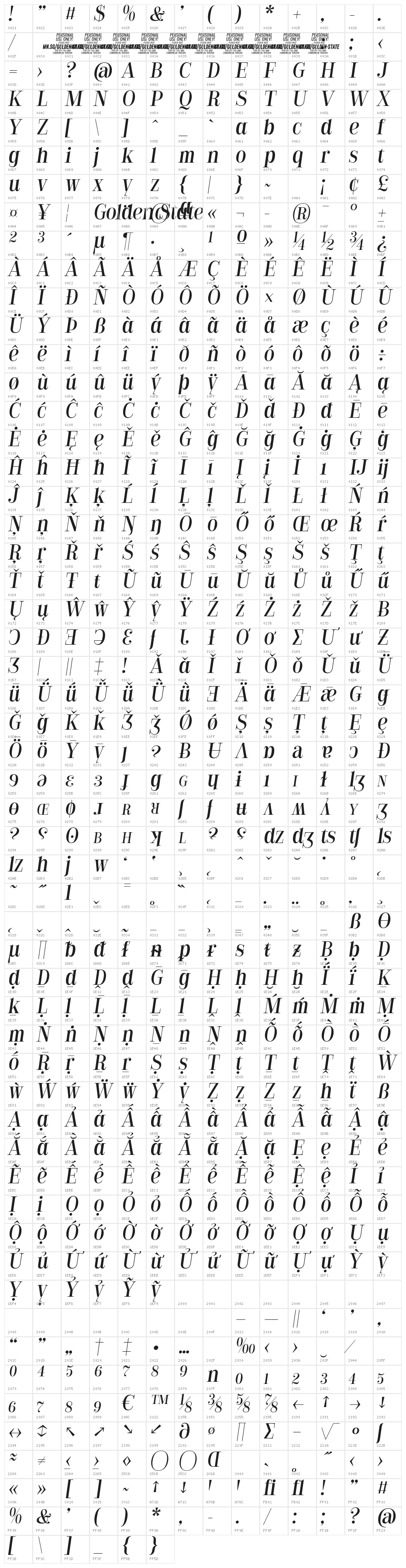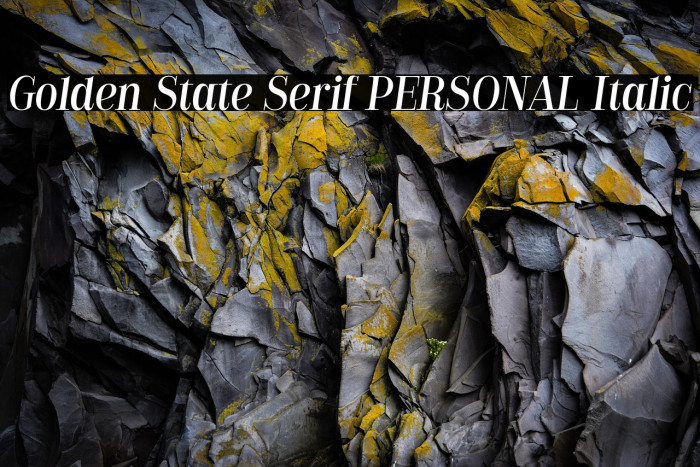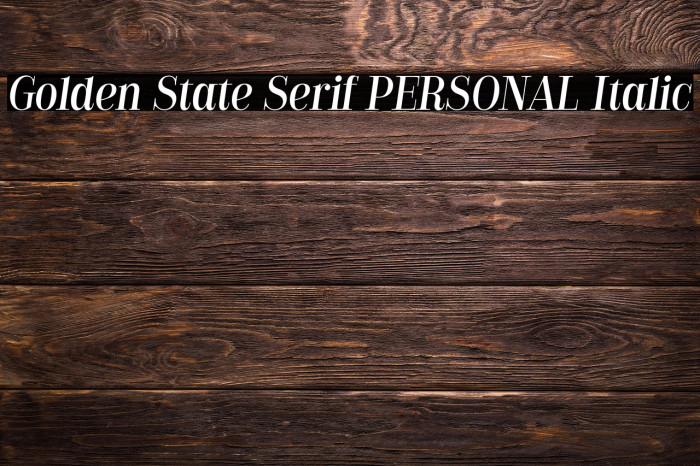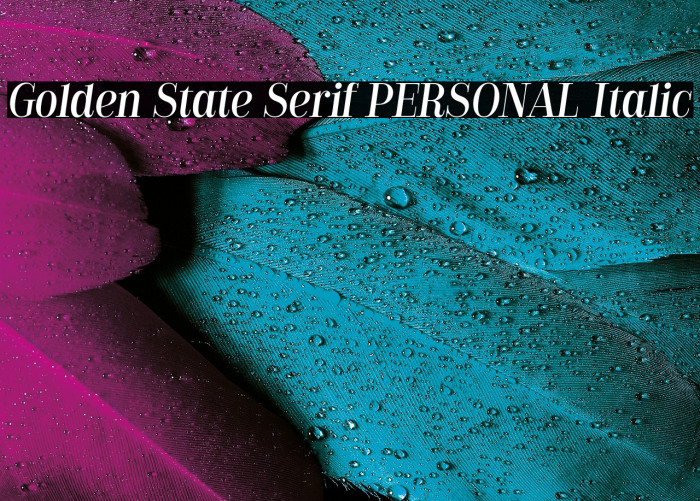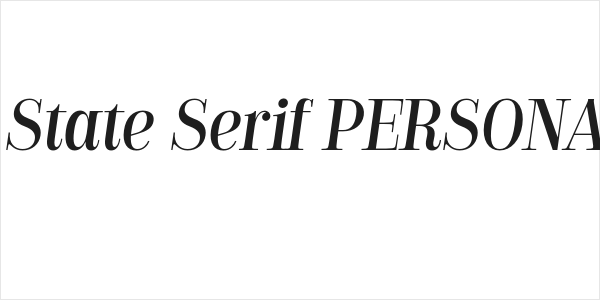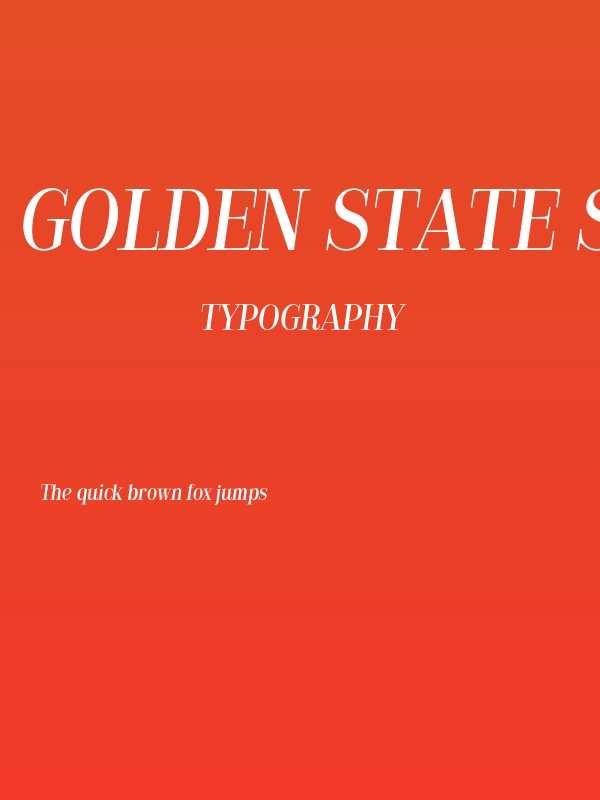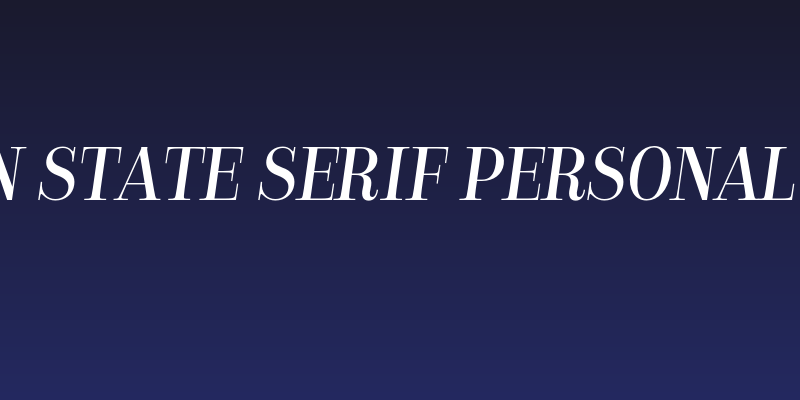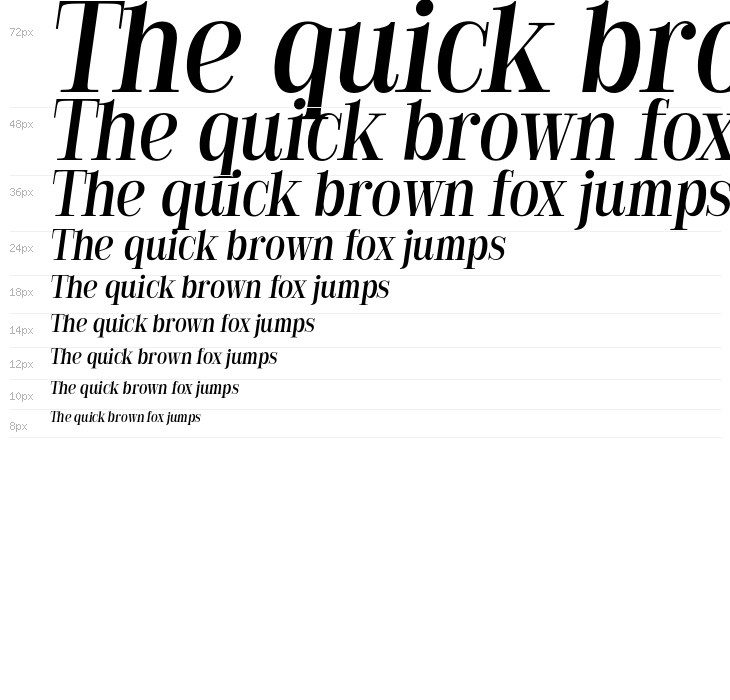
Golden State Serif PERSONAL Italic Font
Golden State Serif PERSONAL Italic Description
This elegant serif font features a classic italic style with a refined and sophisticated appearance. The letters are gracefully slanted, adding a sense of motion and fluidity. The strokes are moderately thick, providing a balanced contrast that enhances readability while maintaining a stylish look. The uppercase letters are tall and commanding, while the lowercase letters are well-proportioned and harmonious. The numerals and special characters are designed to complement the overall aesthetic, making this font versatile for various applications.
| Proposed Projects | Ideal for editorial design, luxury branding, wedding invitations, and elegant packaging. |